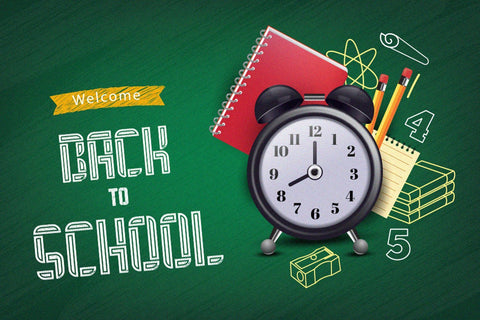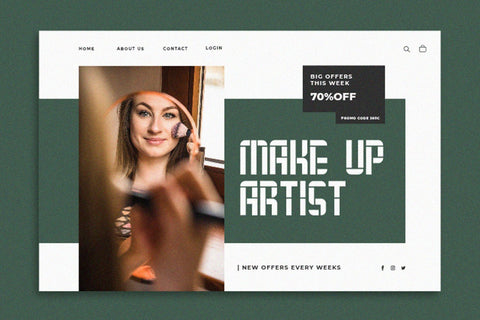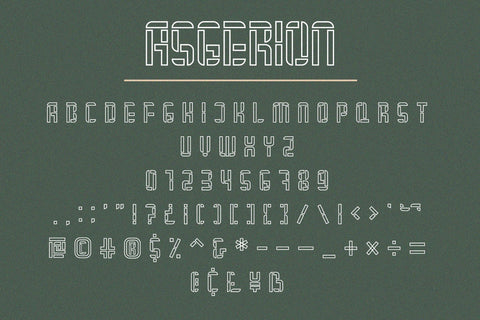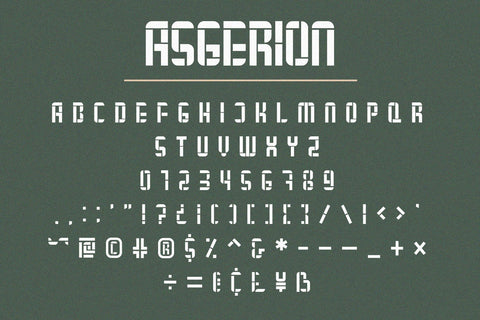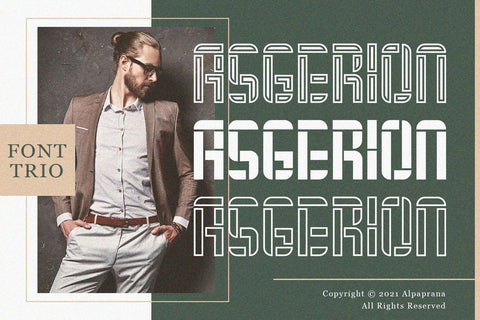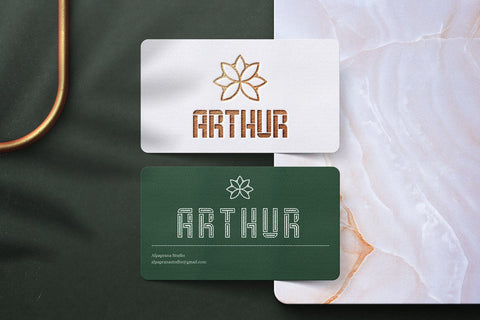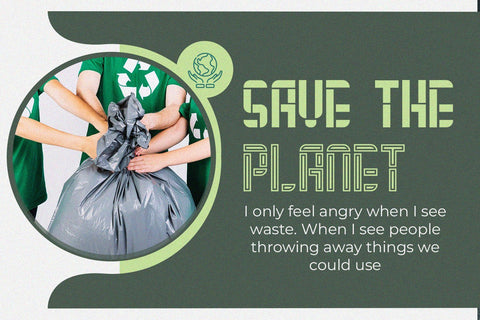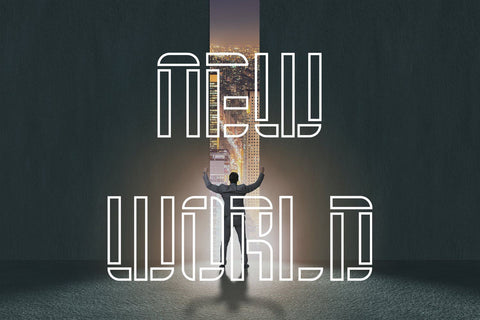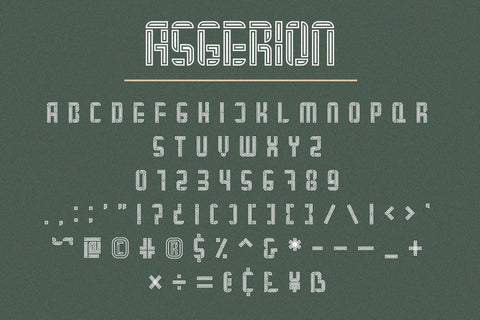
Asgerion - Display Font Trio
Asgerion is a luxury display font with three style. It will be perfectly used for Branding, Logo Design, Lettering, Logotype, Clothing, Poster, magazine, packaging, posters, shopping bags, t-shirts, book covers, photography, special events and other design project.